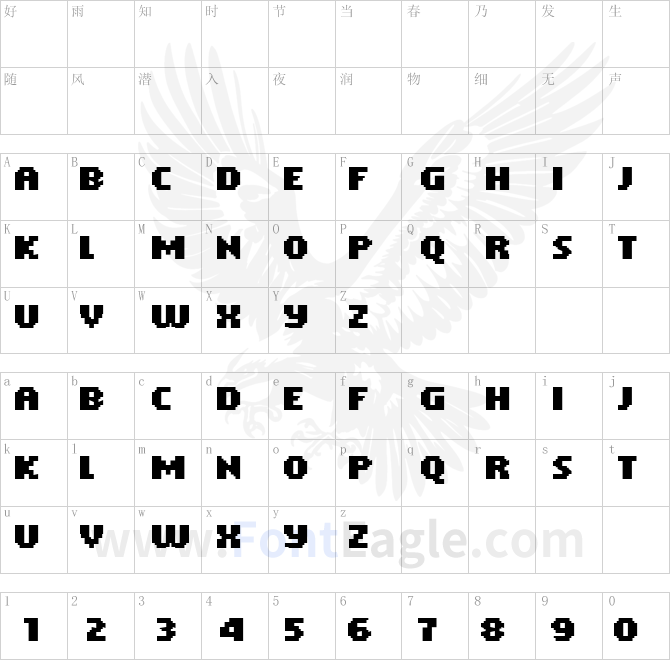
- Font name:PF Tempesta Five Compressed
- Font Subfamily ID:1.003;pyrs;PFTempestaFiveCompressed-Bold
- Font Full Name:PF Tempesta Five Compressed Bold
- Font Version:Macromedia Fontographer 5 13.01.28
- Postscript:PFTempestaFiveCompressed-Bold
- Font Copyright:Copyright (C) 2007 Yusuke Kamiyamane. All rights reserved.